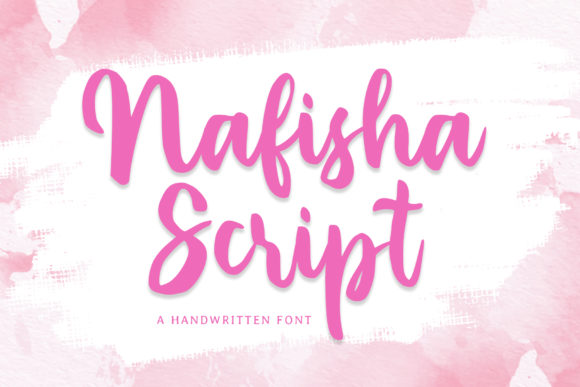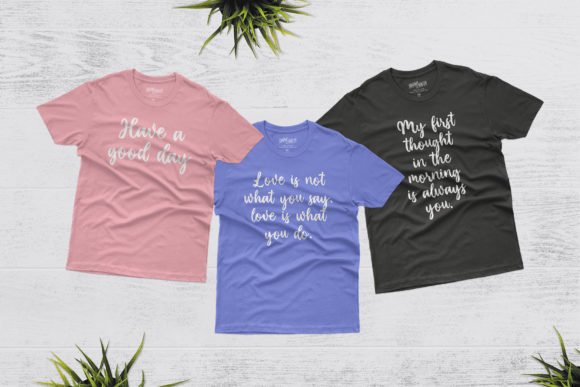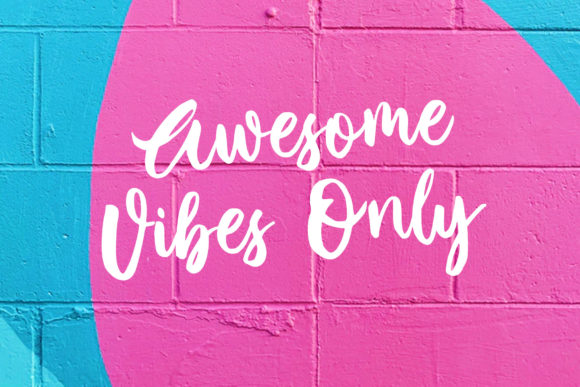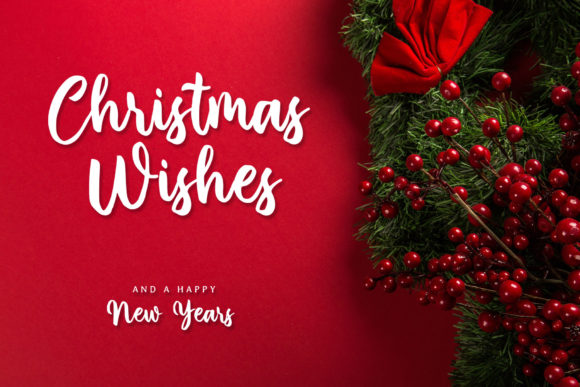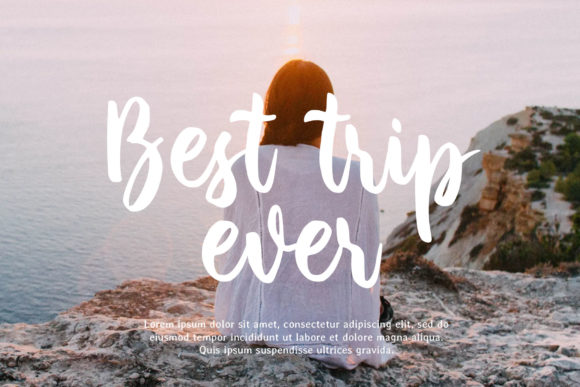
About Nafisha Script Font
Introducing Nafisha Script, a mesmerizing flowing handwritten font that embodies an elegant touch, making it an ideal choice for all your favorite projects. This font is a true masterpiece, with its distinct and timeless style that is sure to capture your heart. Prepare to be enchanted by its beauty and sophistication, and let Nafisha Script elevate your designs to new heights of splendor and allure!
Nafisha Script’s graceful flow and intricate details create a sense of beauty and refinement. Each letter glides effortlessly, as if guided by an artist’s brush, adding an air of artistry to your designs. Whether you’re designing wedding invitations, love letters, or poetic quotes, Nafisha Script brings a touch of class and romance that captivates the senses.
As you fall in love with Nafisha Script, you’ll discover its versatility knows no bounds. Use it for branding and logo design to craft a distinct and memorable identity for your business. The font’s flowing elegance adds a touch of sophistication, making your brand stand out with a unique and captivating allure.
In digital media, Nafisha Script shines as well. Whether you’re creating social media graphics, blog headers, or digital artwork, this font adds a touch of elegance and creativity that draws viewers in and leaves a lasting impression.
Imagine using Nafisha Script for special occasions like weddings and celebrations. The font’s timeless style complements the joyous atmosphere, creating a memorable and enchanting experience for guests and loved ones.
For typographic art, Nafisha Script is a dream come true. Use it to create stunning prints that adorn your living space with elegance and beauty. The font’s distinct and flowing appearance adds an element of luxury to your artwork, making it a focal point of admiration.
In longer passages, Nafisha Script remains highly legible, making it a valuable asset for editorial designs like books, magazines, and brochures. Its smooth flow ensures that readers can immerse themselves in the written words, enjoying every moment of the reading experience.
In conclusion, Nafisha Script is more than just a font; it’s an exquisite piece of art that exudes elegance and sophistication. With its flowing handwritten style and timeless allure, Nafisha Script becomes your go-to choice for all your favorite projects. From wedding invitations to branding, typographic art, and beyond, Nafisha Script elevates your creations to spectacular heights of beauty and creativity. Embrace the enchantment of Nafisha Script and watch as your designs come alive with a mesmerizing touch that captivates hearts and leaves a lasting impact. Let your creativity soar in the elegant embrace of Nafisha Script, the flowing handwritten font that defines timeless beauty.